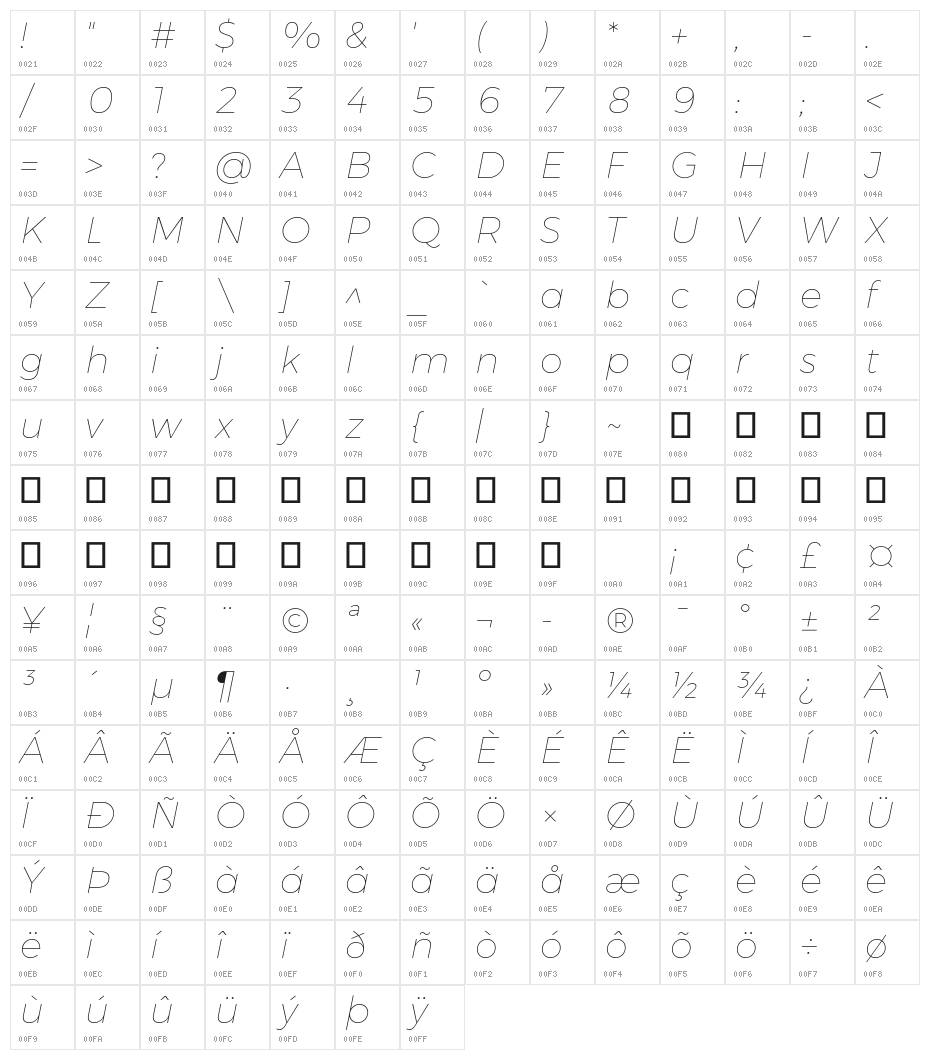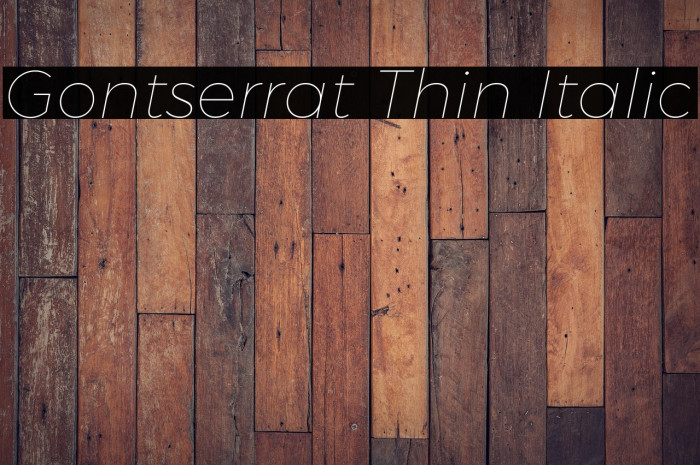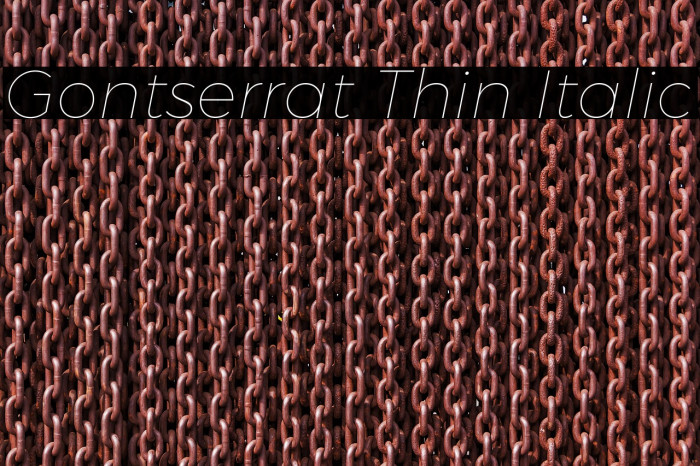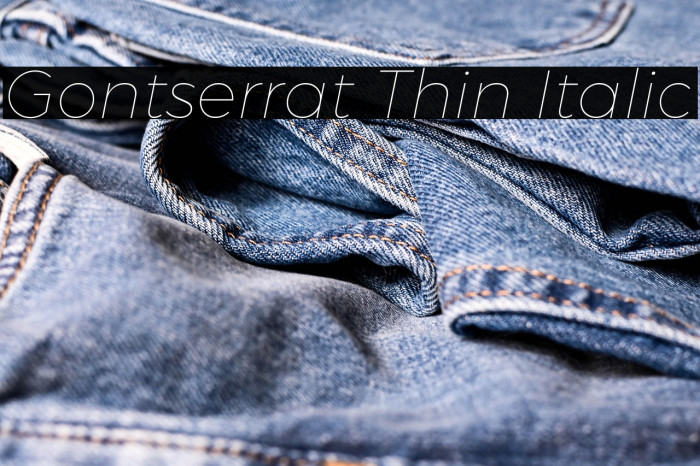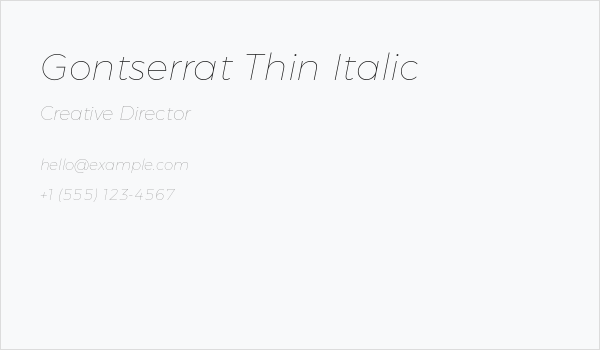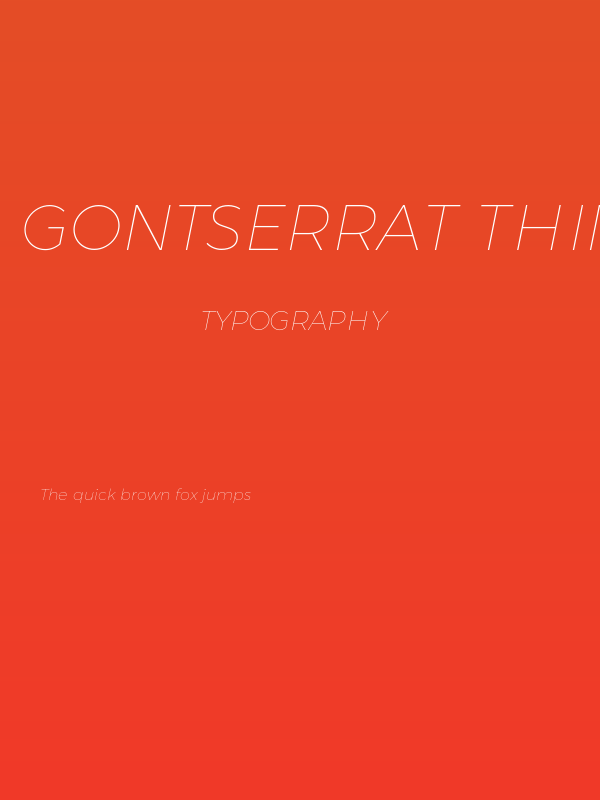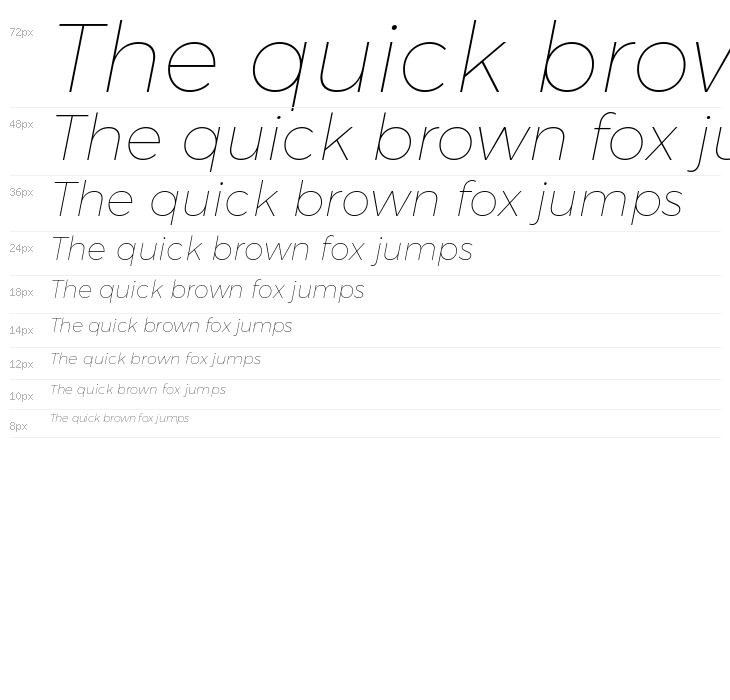
Gontserrat Thin Italic Font
Gontserrat Thin Italic Description
This font features a sleek and modern design with a thin, elegant structure. The characters are slightly slanted, giving it an italicized appearance that adds a sense of motion and sophistication. The strokes are consistent and clean, with a minimalist aesthetic that is both contemporary and versatile. The font maintains a uniform thickness throughout, contributing to its refined and polished look. It is well-suited for projects that require a touch of elegance and modernity, such as branding, editorial design, and digital media.